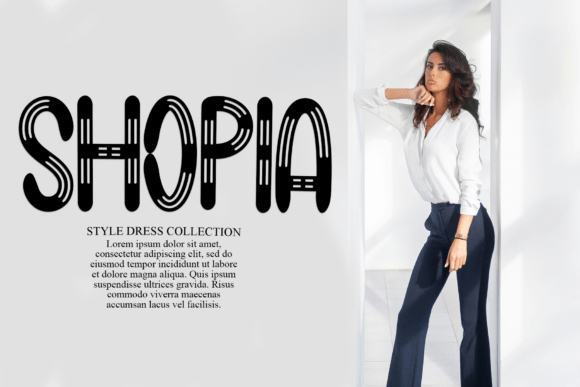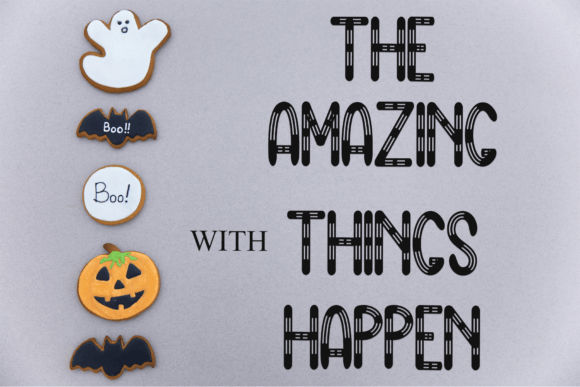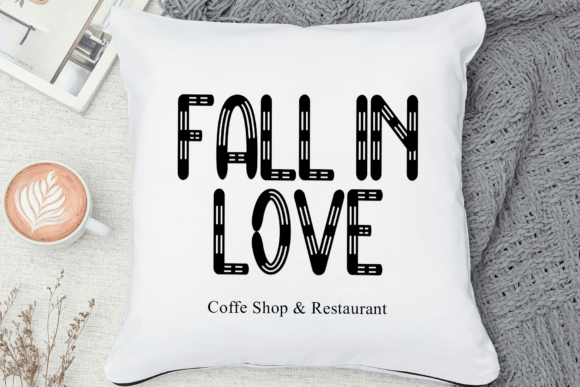
Introduction to Momentic Halloween Font
As a designer, there’s nothing quite like the thrill of stumbling upon the perfect font to elevate a creative project. It’s like finding a hidden treasure that brings your entire concept together. For many of us, that moment of discovery is a high point in the design process.
One font that’s sure to bring a touch of magic to your next project is the Momentic Halloween Font. This quirky display font is a valuable resource for designers looking to add a unique touch to their work. With its high-quality design, it’s perfect for a wide range of applications, from spooky Halloween decorations to creative marketing campaigns.
Whether you’re working on a free download or a paid design project, the Momentic Halloween Font is an excellent choice. Its transparent background makes it easy to use on any background, giving you complete creative control. In this article, we’ll take a closer look at what makes this font so special and how you can use it to take your designs to the next level.
Key Features of Momentic Halloween Font
- High-quality design resource suitable for creative projects and print materials.
- Transparent background, allowing for easy customization and layering in design software.
- Unique, hand-drawn design elements and Gothic-inspired lettering make it perfect for Halloween-themed projects and beyond.
Honest Review: Momentic Halloween Font
I recently stumbled upon the Momentic Halloween Font, a free design resource that caught my attention. This font is perfect for those creative projects that require a spooky vibe. ✨ Its high-quality design and intricate details make it stand out from the rest.
Here are some of the features that work well with this font:
- Transparent background, allowing for seamless integration with any design
- High-resolution images, ideal for printing or digital use
- A wide range of glyphs, making it suitable for various creative projects
While the Momentic Halloween Font excels in many areas, there are some limitations to consider:
- ⚠️ Limited font sizes and styles, which may restrict its use in certain contexts
- ⚠️ Not ideal for body text, as it’s best suited for headings and titles
Overall, I’m impressed with the Momentic Halloween Font. Its unique design and high-quality features make it a valuable resource for designers and creatives. If you’re looking for a font to add a touch of Halloween magic to your project, this is definitely worth checking out.
Common Use Cases for Momentic Halloween Font
The Momentic Halloween Font is a versatile design resource that can be used in a variety of creative projects, including party invitations, social media graphics, posters, flyers, and presentations. Its unique design elements and high-quality design make it an ideal choice for designers looking to create a spooky and creative Halloween-themed design.
Tips for Getting the Most Out of Momentic Halloween Font
To get the most out of the Momentic Halloween Font, experiment with different font sizes, colors, and arrangements to create a unique and eye-catching design. Use the font’s transparent background to add depth and dimension to your design, and take advantage of its high-quality design to make a lasting impression.